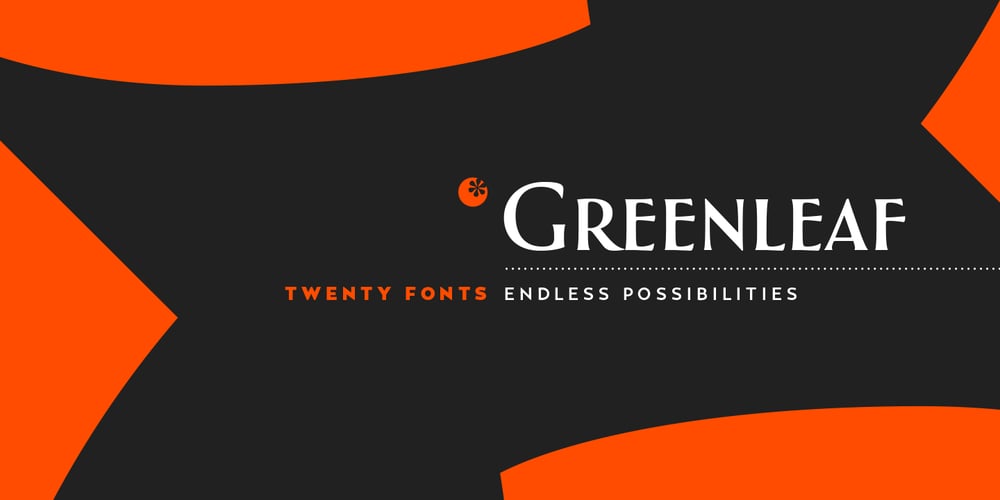
Greenleaf
Greenleaf font
Greenleaf Font Family was designed by Charles Gibbons and published by Oddsorts. Greenleaf contains 20 styles and family package options. Meet Greenleaf, a display family that blends elegant art deco details, extensive linguistic support, and technically innovative features to create a bold impression that’s ideal for branding, signage, packaging, invitations, and so much more.Greenleaf’s “Pro” fonts support over three hundred sixty languages to reach the broadest possible audience. Meanwhile, its decorative companions expand the family’s expressive potential. They effortlessly create banners, chains, frames, and patterns — and include chromatic fonts which can be set in two colors without layers or special design software.Download the user guide to see Greenleaf’s many features and discover how the fonts actively help you take advantage of all they have to offer. Enjoy!Greenleaf is a trademark of Charles Gibbons / Oddsorts and may be registered in certain jurisdictions.